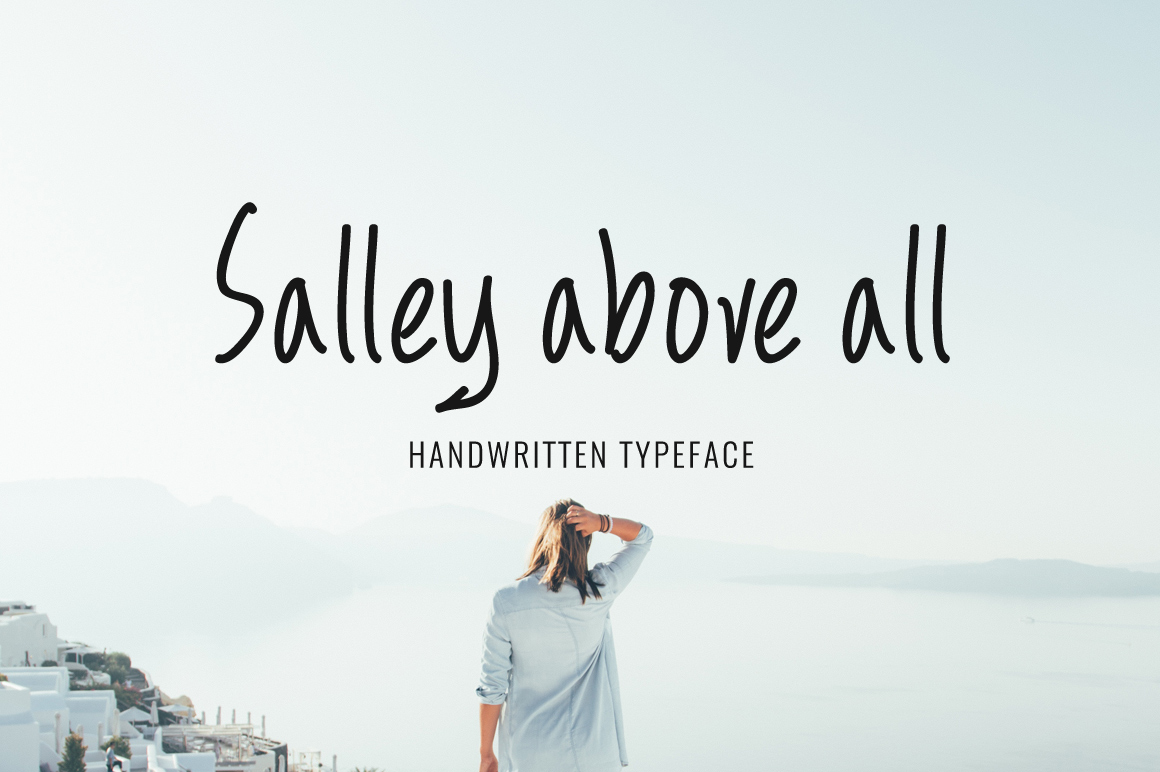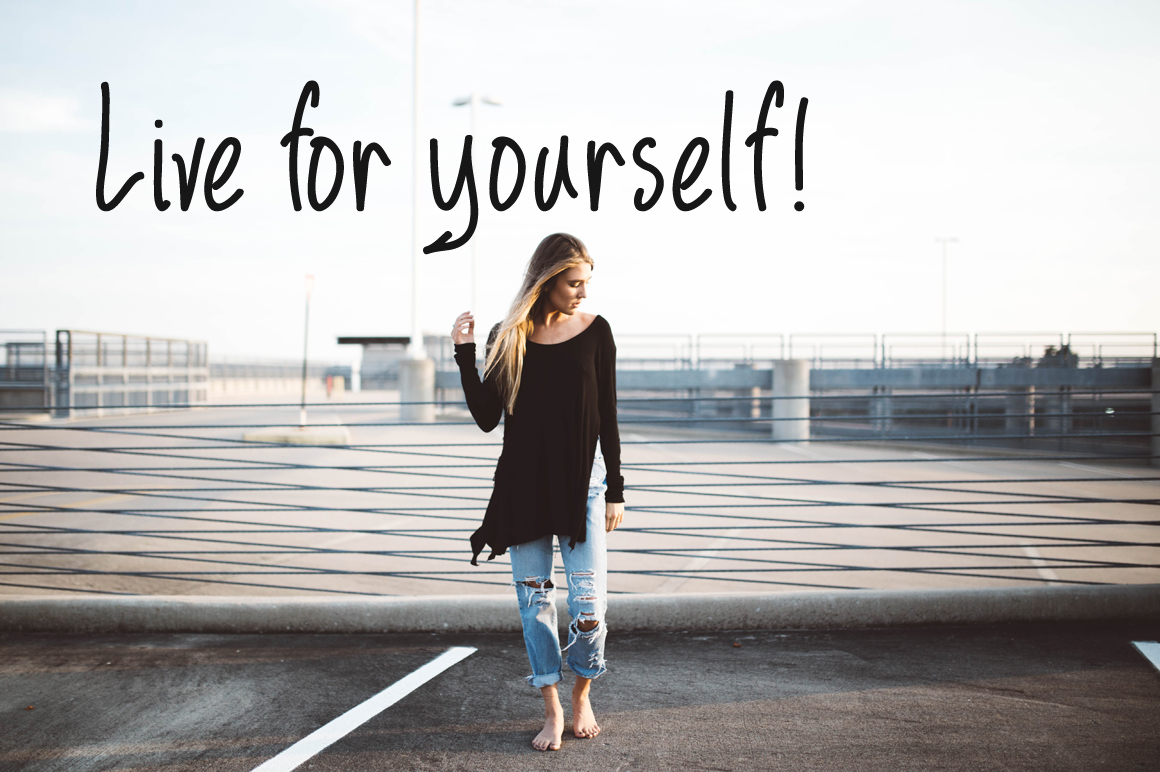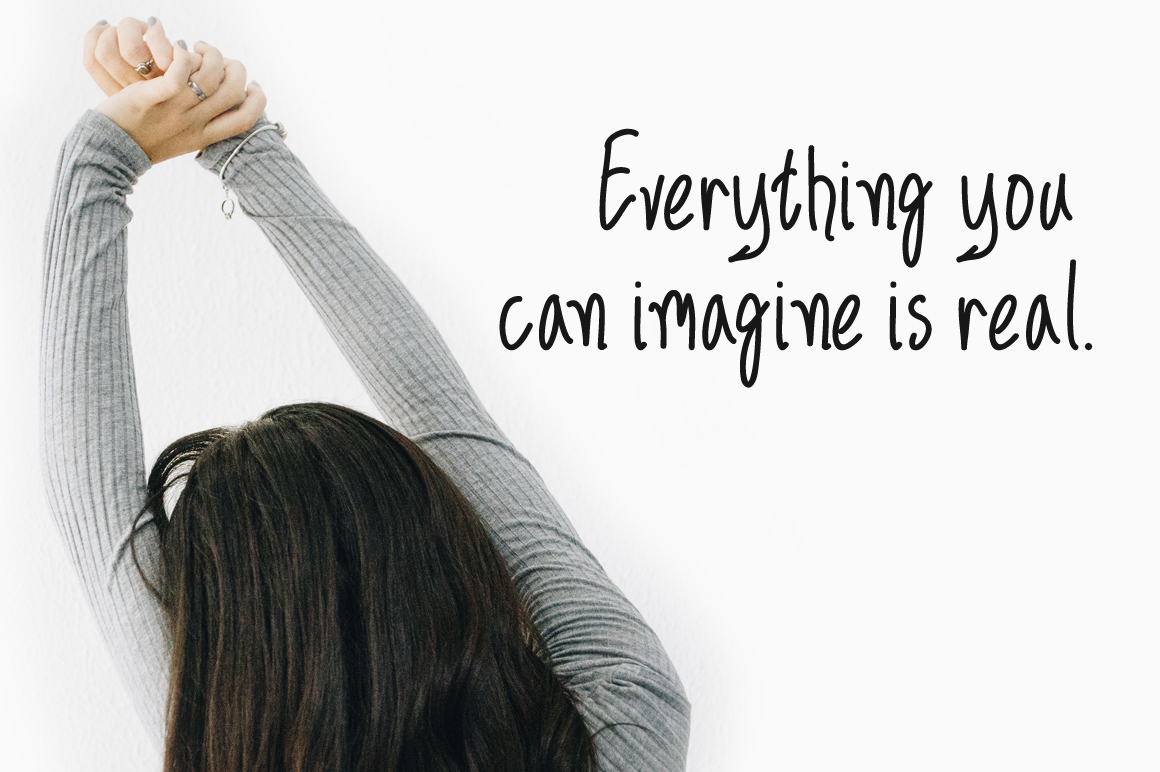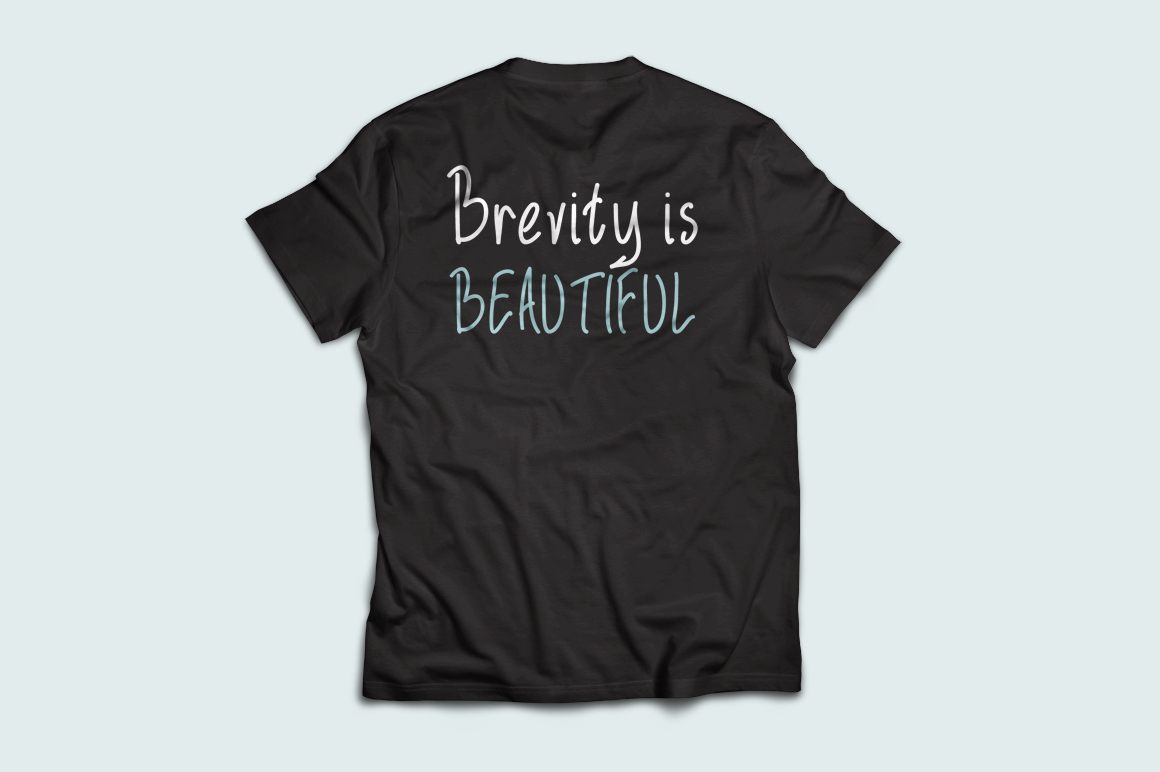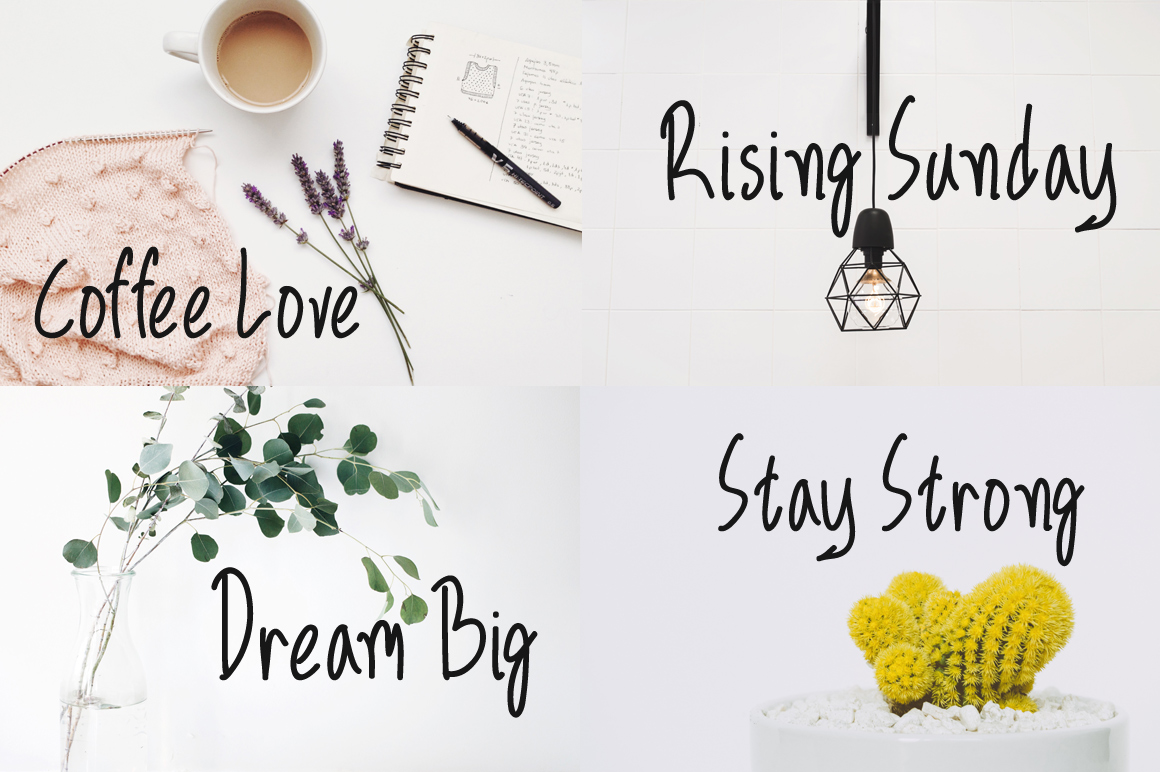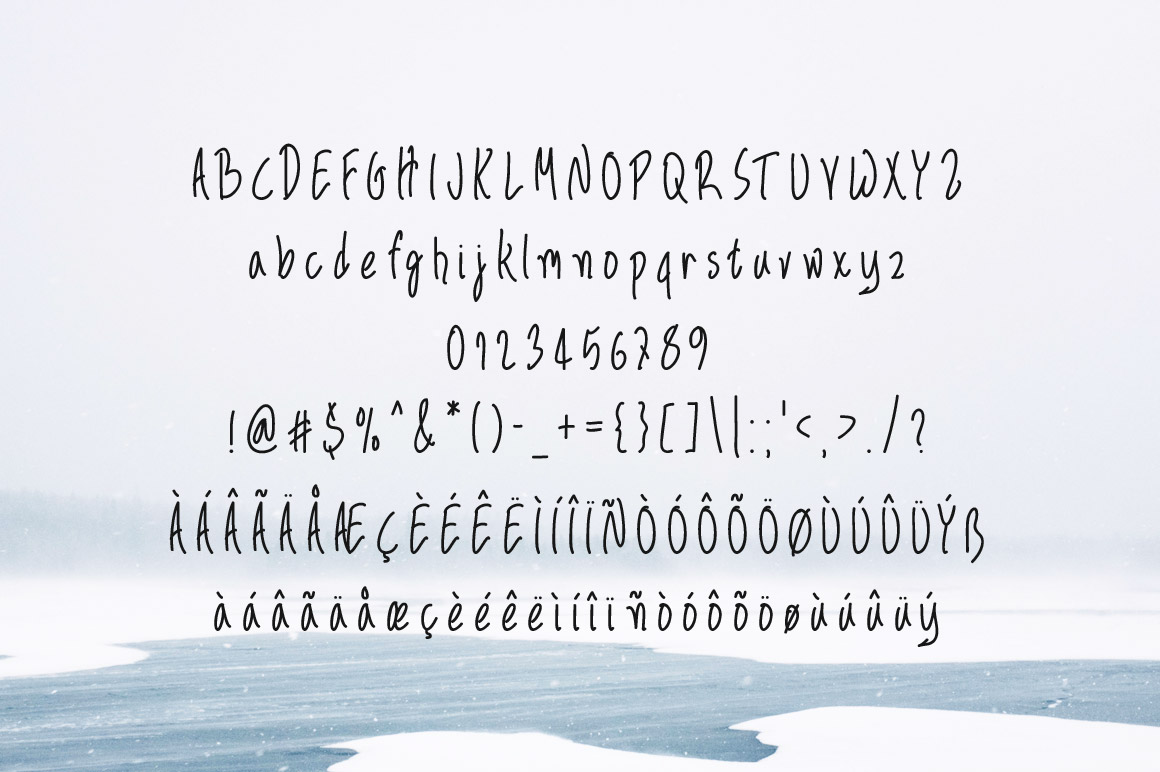
Salley Above All Font
About Salley Above All Font
Salley Above All is a friendly and airy font, suitable for a wide range of projects and applications. This handwritten sans serif font looks great on apparel and in headlines, making it both versatile and reliable.